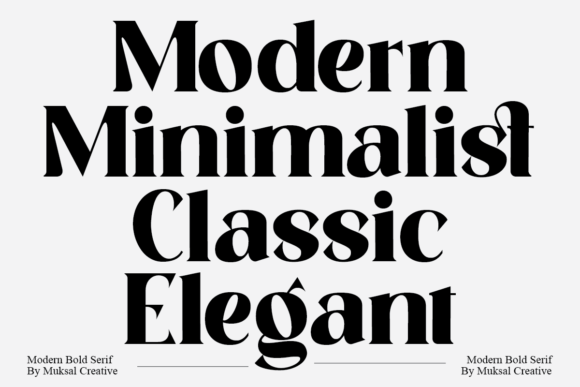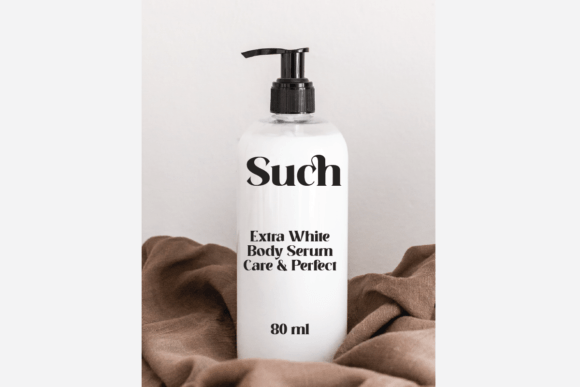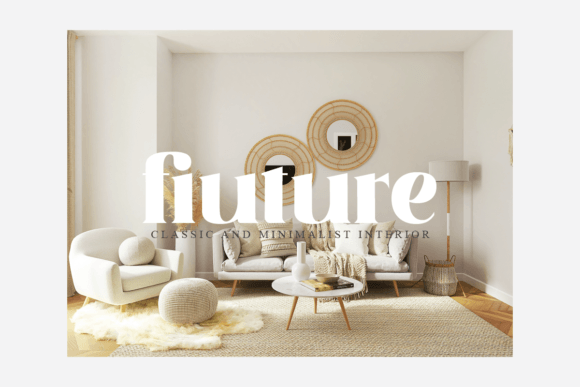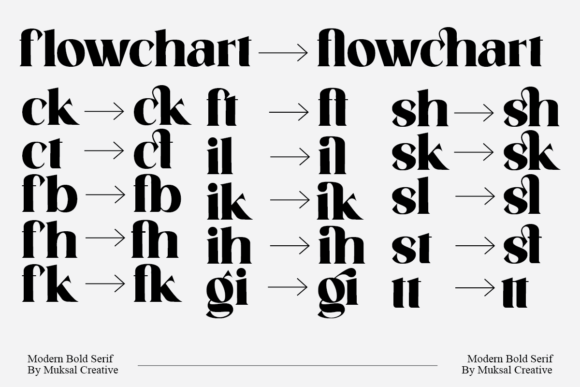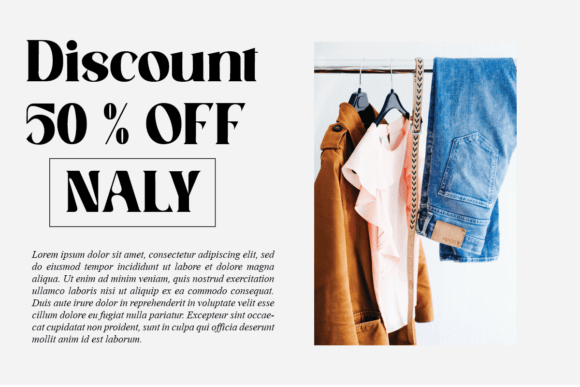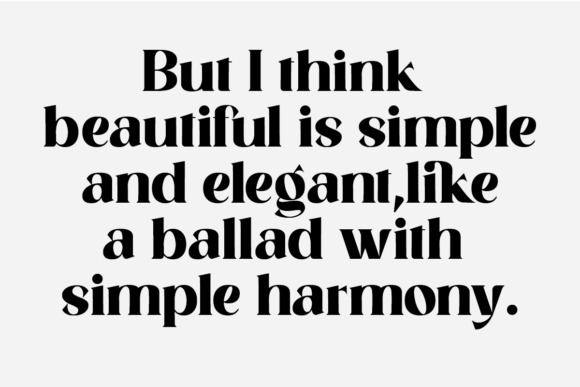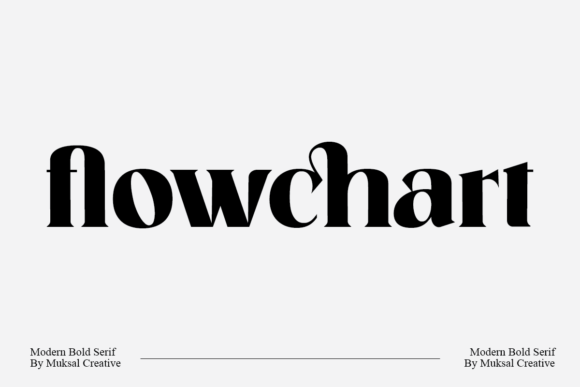
Introducing Flowchart Font: The Ultimate Modern Bold Serif Typeface
In the world of typography, a good font can make all the difference in the success of a design project. Whether you’re a graphic designer, a crafty DIY enthusiast, or a branding expert, having the right font at your disposal can elevate your work from ordinary to extraordinary. This is where Flowchart Font comes in – a modern bold serif typeface that is as versatile as it is visually stunning.
What Makes Flowchart Font Stand Out?
Flowchart Font is not just another font; it’s a comprehensive typeface designed to meet the demands of modern design. Here are some of its standout features:
- Modern Bold Serif: Flowchart Font boasts a bold and contemporary serif design that commands attention. Its serifs add a touch of elegance and sophistication, making it perfect for projects that require a bit of luxury and refinement.
- Beautiful Ligature: One of the unique features of Flowchart Font is its beautiful ligatures. Ligatures are special characters that combine two or more letters into a single glyph, creating a more harmonious and fluid text flow. This feature is particularly useful for editorial projects and logo designs where aesthetics are paramount.
- Special Glyphs and Ornaments: To further enhance its versatility, Flowchart Font comes with a range of special glyphs and ornaments. These decorative elements can be used to add flair to your designs, making them more engaging and visually appealing.
- Multilingual Support: In today’s globalized world, having a font that supports multiple languages is a significant advantage. Flowchart Font offers multilingual support, making it an excellent choice for international brands and projects that cater to a diverse audience.
One of the key strengths of Flowchart Font is its versatility. It works exceptionally well in both large and small sizes, making it suitable for a wide range of applications. Here are some of the ways you can use Flowchart Font:
- Editorial Projects: Whether you’re working on a magazine, a newspaper, or a book, Flowchart Font is an excellent choice for headlines and body text. Its readability and style ensure that your content stands out.
- Logo Design: Creating a memorable logo requires a font that is both distinctive and elegant. Flowchart Font’s bold serifs and ligatures make it an ideal candidate for logo design, helping your brand to leave a lasting impression.
- Clothing Branding: For fashion brands, having a unique and stylish font is crucial for establishing a brand identity. Flowchart Font can help clothing brands to create stylish and eye-catching branding that resonates with their target audience.
- Product Packaging: Product packaging is an essential aspect of branding, and the right font can make a significant difference. Flowchart Font’s elegance and sophistication make it perfect for product packaging, adding a touch of luxury to your products.
- Magazine Headers: If you’re looking for a font that can add a touch of glamour to your magazine headers, Flowchart Font is an excellent choice. Its bold serifs and decorative elements ensure that your headers stand out.
- Stylish Text Overlay: Finally, Flowchart Font can be used as a stylish text overlay to any background image. Its versatility and readability make it perfect for adding text to images, ensuring that your message is conveyed clearly and stylishly.
In conclusion, Flowchart Font is a modern bold serif typeface that offers a unique combination of style, versatility, and functionality. Its beautiful ligatures, special glyphs, ornaments, and multilingual support make it an excellent choice for designers and crafters looking to elevate their projects. Whether you’re working on editorial projects, logo design, clothing branding, product packaging, or simply looking for a stylish text overlay, Flowchart Font is an excellent choice. With its wide range of applications and stunning design, Flowchart Font is sure to become a staple in your font collection.